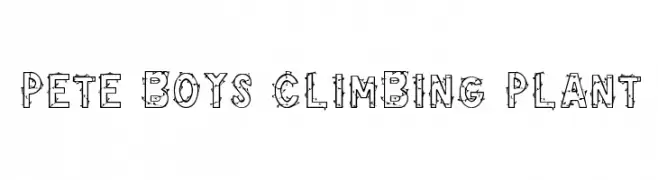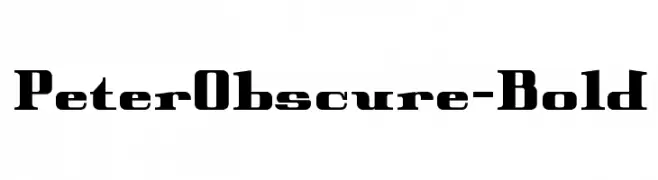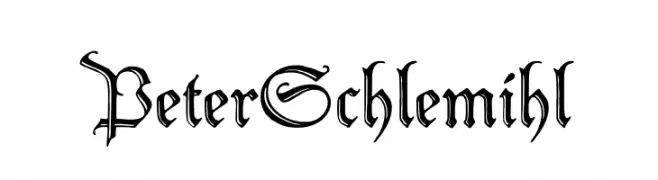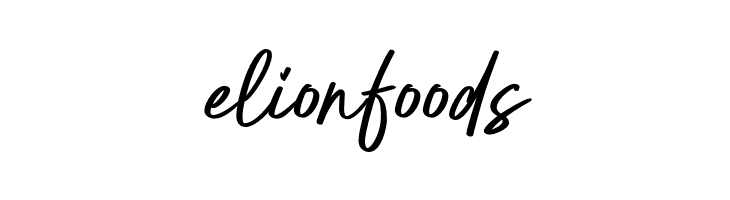
A decorative font with plant-like embellishments entwining each character.
An ornate, decorative font with intricate details and bold outlines.
A playful and casual script font with flowing, connected letters.
A bold, high-contrast serif font with angular details and strong presence.
A bold, high-contrast font with a striking and impactful design.
An ornate blackletter font with intricate, gothic-inspired design.
Elegant cursive script with a handwritten style.